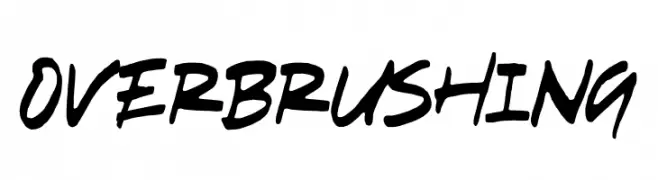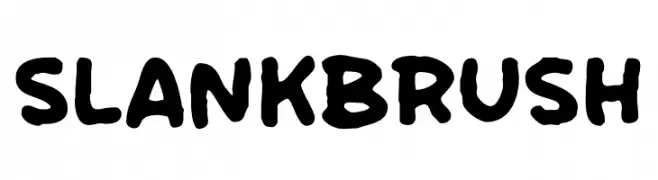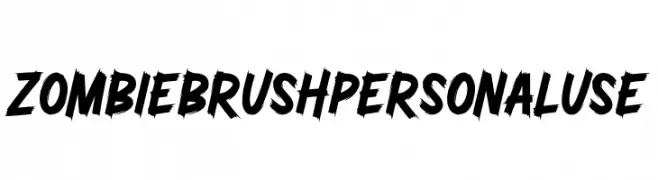
A bold, energetic brush-style font with dynamic strokes and a handcrafted feel.
A bold, brush-style font with an energetic and dynamic appearance.
A bold, brush-style font with dynamic and jagged strokes for an energetic look.
A bold, brush-style font with dynamic and expressive strokes.
A bold, brush-style font with dynamic, expressive strokes.
A bold, playful brush-style font with a hand-drawn aesthetic.
A bold, brush-style font with a hand-drawn, artistic appearance.
A bold, brush-stroke style font with a dynamic and artistic appearance.
Bold brush-style script font with dynamic strokes.
Bold brush script with a hand-painted look.